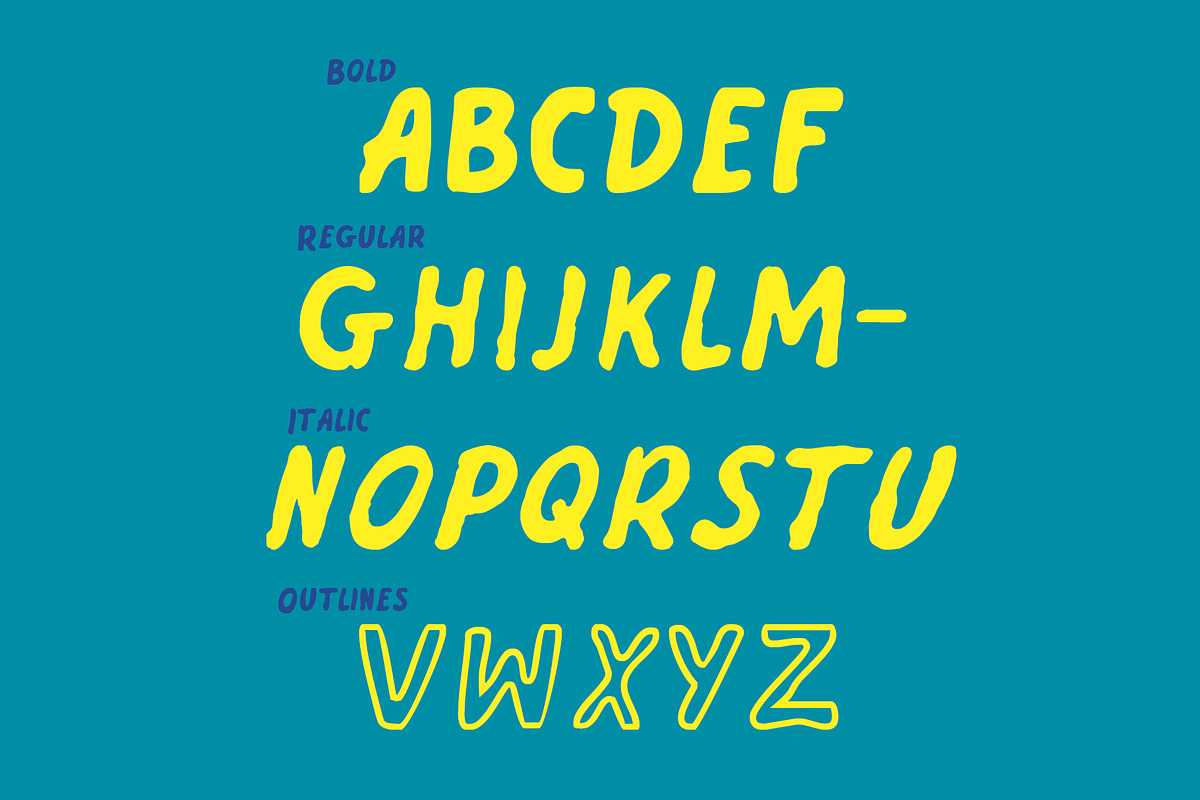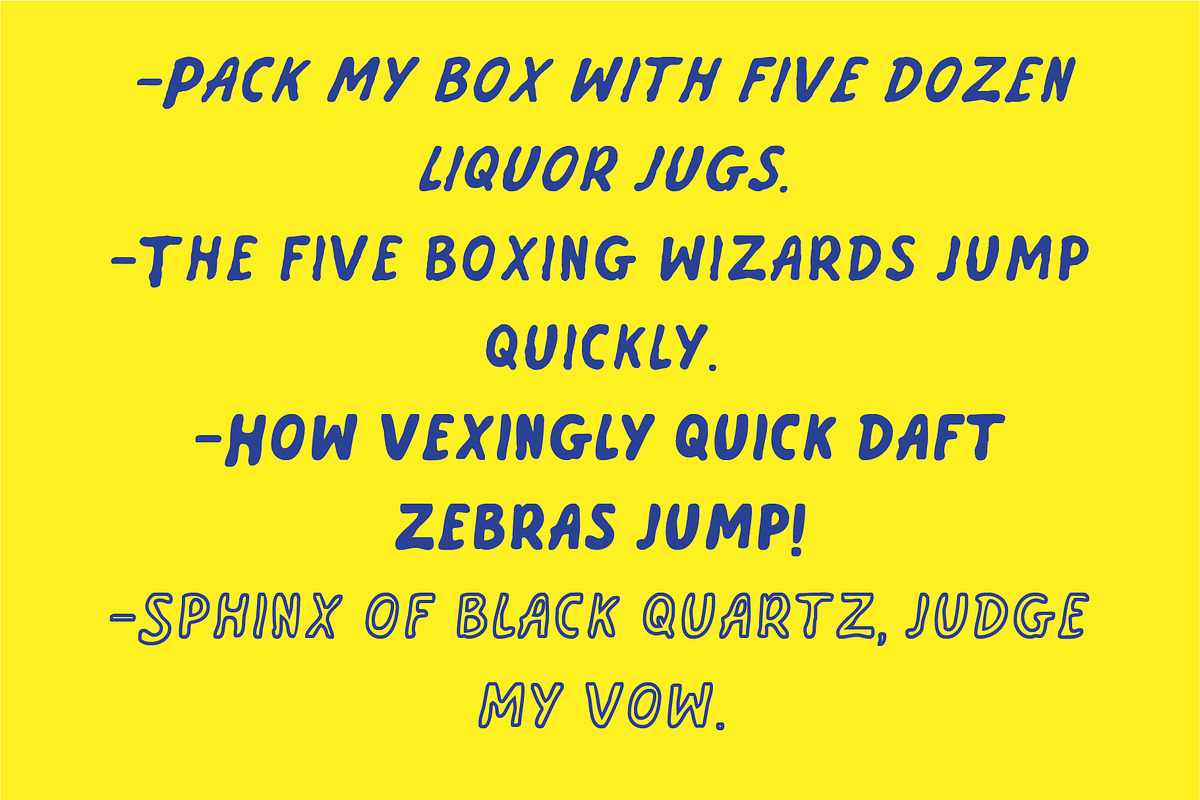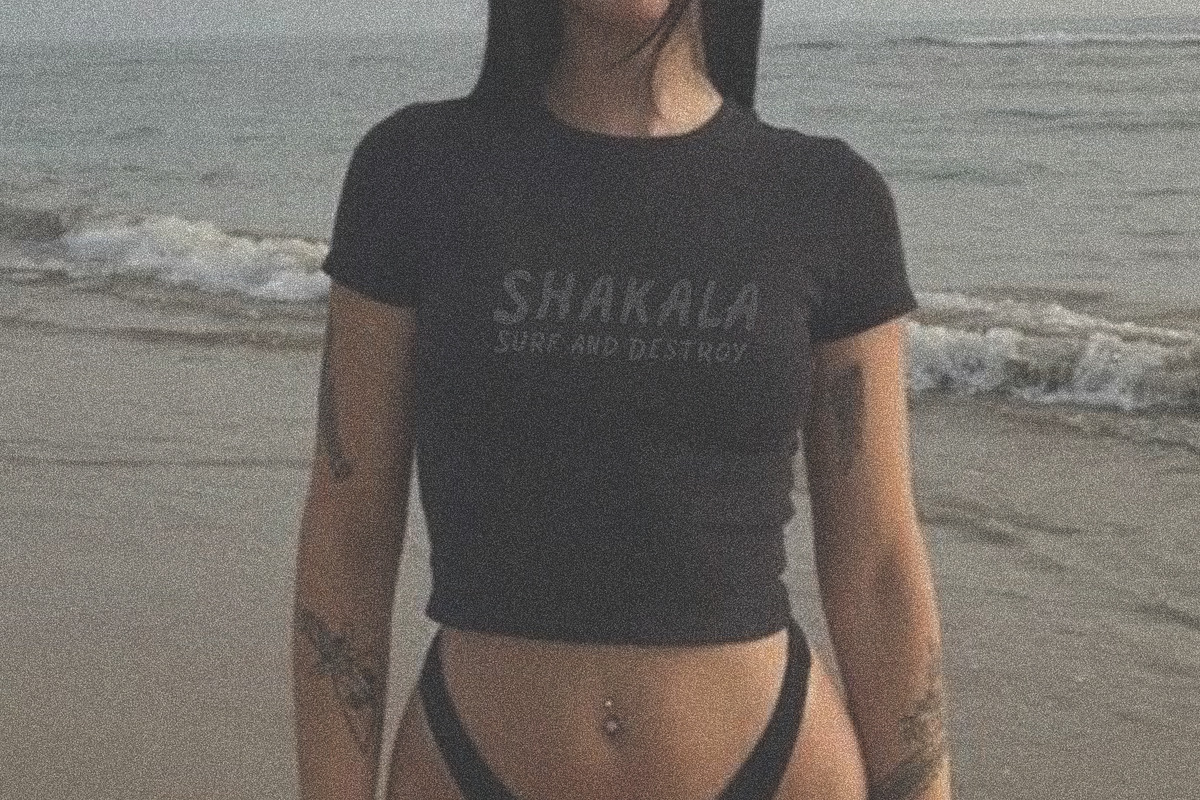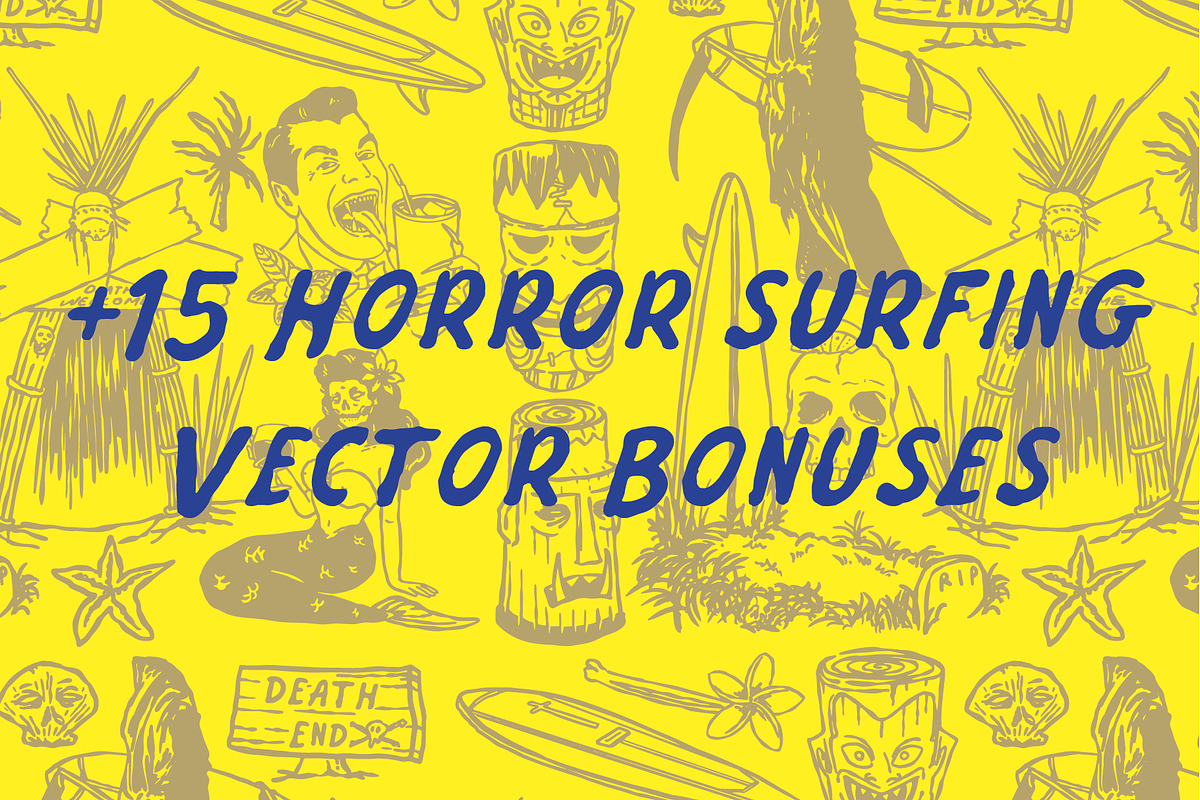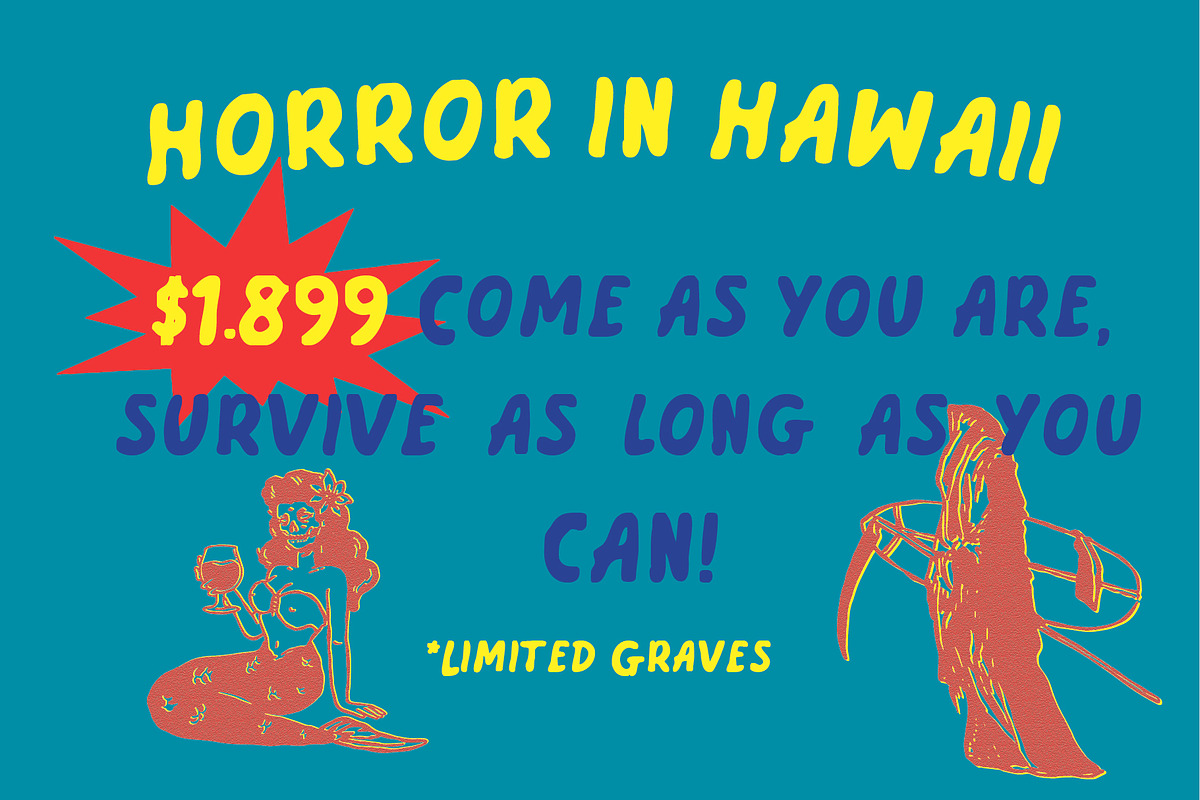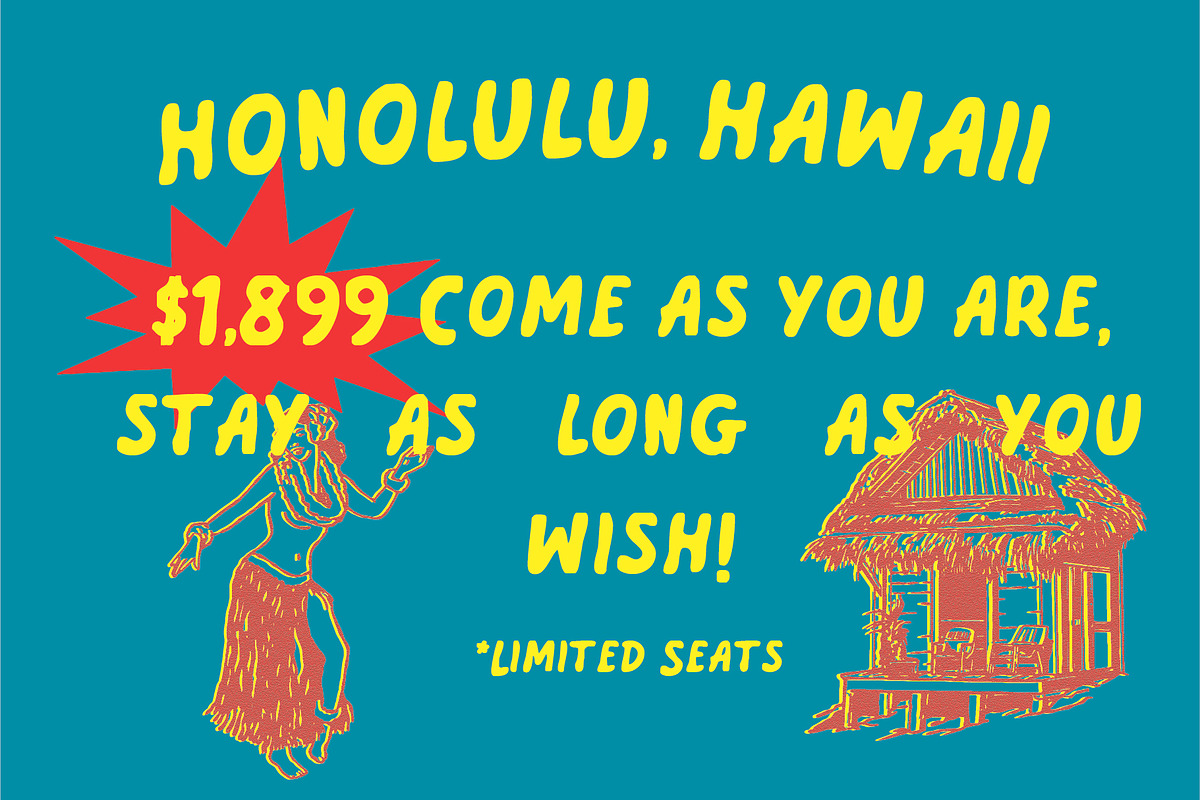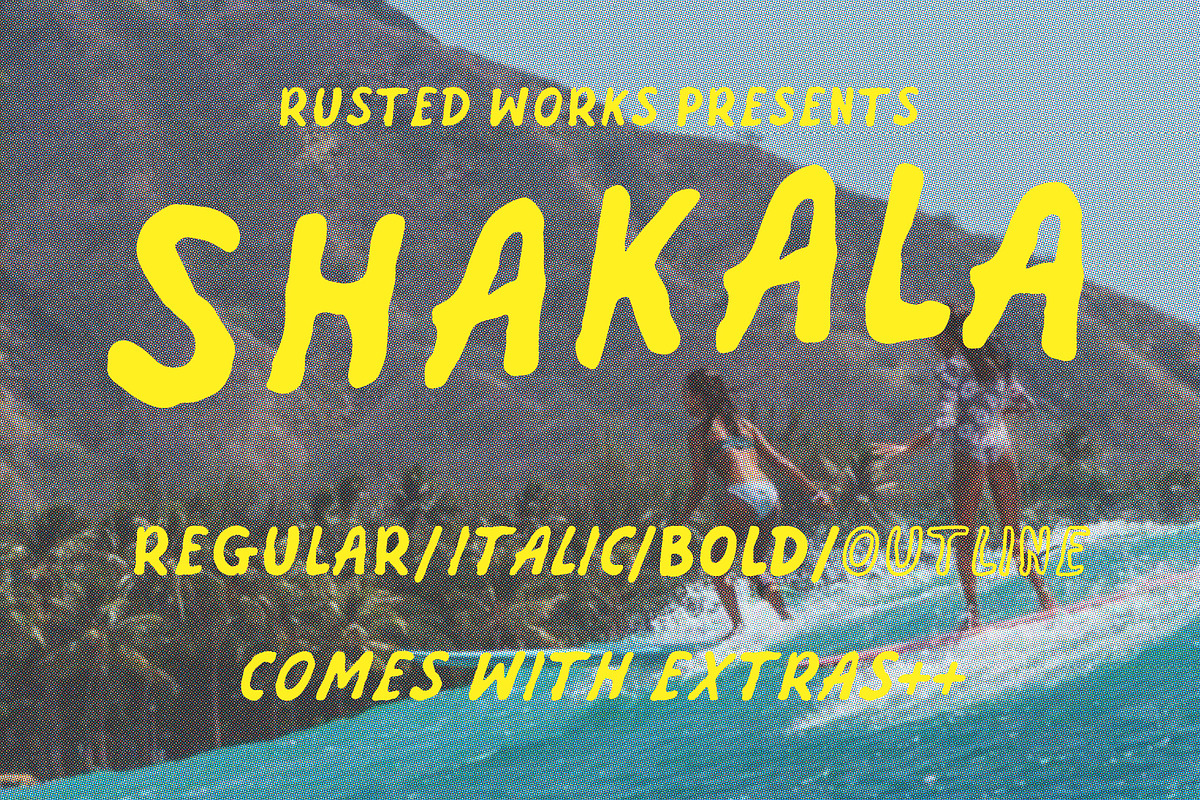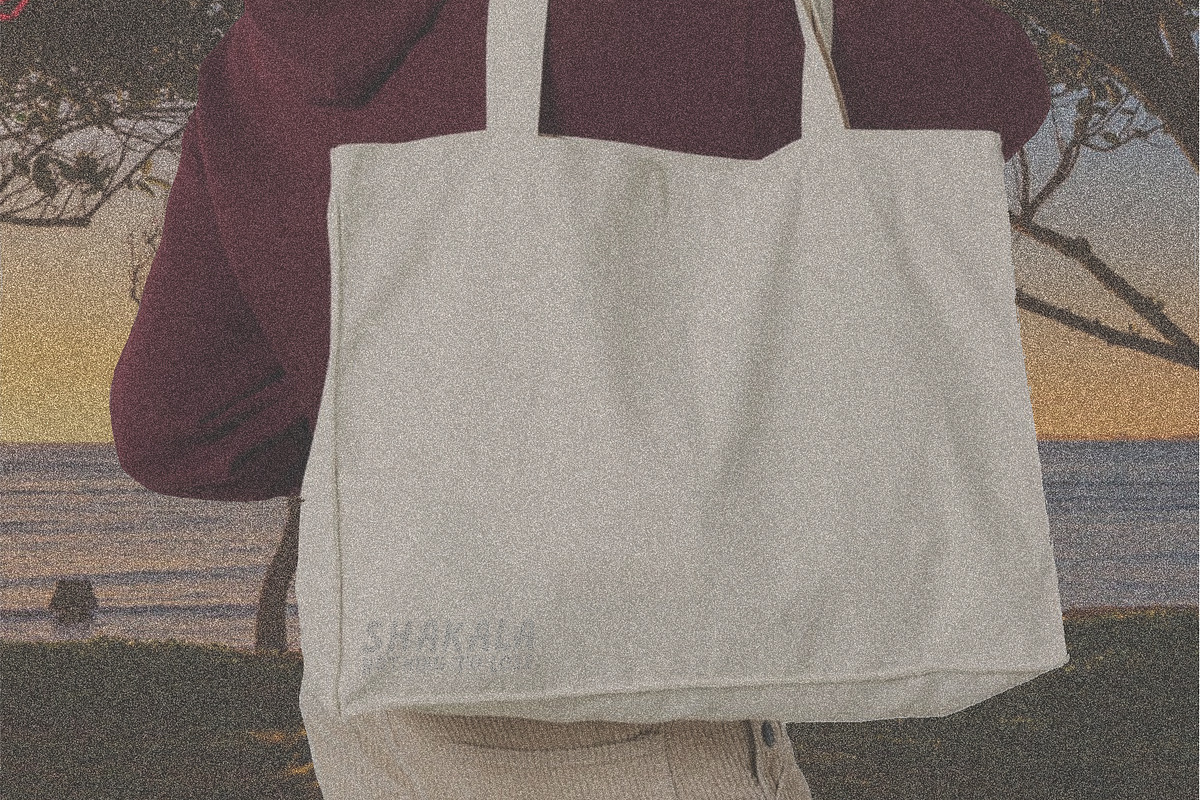
Shakala - Surf Hand drawn Typefaces
Shakala is a bold, playful hand-drawn display typeface inspired by surf culture, vintage travel posters, and carefree summer vibes. With its organic strokes and expressive shapes, Shakala brings a warm, energetic personality to your designs.
Designed to stand out, this font is perfect for creatives who want a bold, human touch that feels fun, relaxed, and full of character.
Handcrafted, expressive letterforms Unique organic brush style Multiple font styles for flexible design use Eye-catching display typeface Easy to use and install
Branding & logo design Posters & flyers Apparel & merchandise Social media graphics
Surf, travel, lifestyle, and streetwear projects